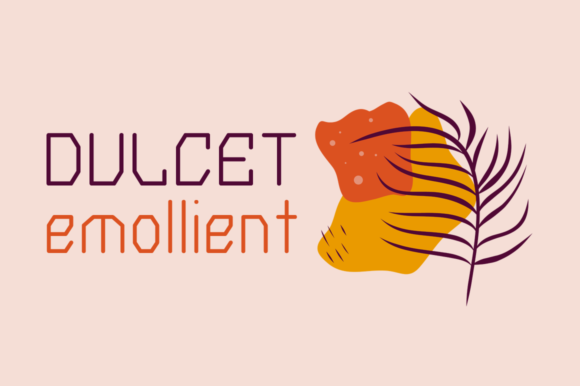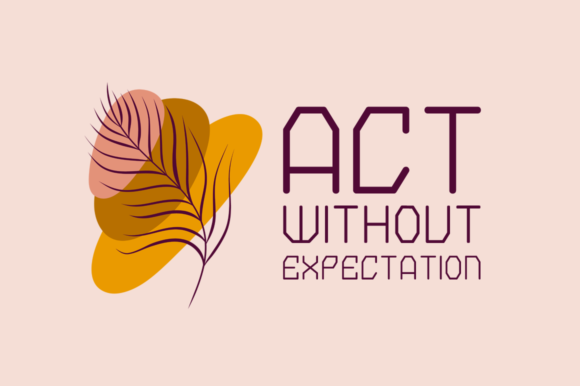
Fibril Font: Celebrating Abstract Shapes in All Their Complex Beauty
In the world of typography, fonts play a crucial role in conveying messages, expressing emotions, and creating visual identities. For designers and crafters, finding the perfect font can be a daunting task, especially when looking for something unique and attention-grabbing. This is where Fibril Font comes in – a playfully conceptual font that celebrates abstract shapes in all their complex beauty.
What is Fibril Font?
Fibril Font is a distinctive and versatile typeface that showcases intricate, abstract shapes in a mesmerizing dance of lines and curves. This font is not just a collection of letters and numbers; it’s an artistic expression that can elevate any design project to new heights. With its complex, interconnected shapes, Fibril Font adds a touch of sophistication and whimsy to any visual material.
Uses of Fibril Font
One of the most exciting aspects of Fibril Font is its incredible versatility. This font can be used in a wide range of contexts, including:
- Stationery: Create eye-catching letterheads, business cards, and invitations that showcase your brand’s personality.
- Logos: Develop a unique and memorable logo that sets your brand apart from the competition.
- T-shirts and apparel: Add a touch of style and humor to your designs with Fibril Font.
- Paper and print design: Use Fibril Font to create stunning posters, brochures, and flyers that grab attention.
- Website headers: Add a creative and artistic touch to your website’s header section.
- Photo frames and art: Use Fibril Font to add a personal touch to your photo frames, art prints, and other creative projects.
- Flyers and event materials: Create eye-catching promotional materials for events, conferences, and workshops.
Why Choose Fibril Font?
So, what makes Fibril Font so special? Here are just a few reasons why designers and crafters love this font:
- Unique and distinctive: Fibril Font offers a fresh and original take on traditional typography, making it perfect for brands and designers looking to stand out.
- Playful and creative: This font’s abstract shapes and intricate details add a touch of playfulness and creativity to any design project.
- Versatile: Fibril Font can be used in a wide range of contexts, from digital designs to print materials.
- High-quality: This font is crafted with attention to detail, ensuring a high level of quality and legibility.
Tips for Using Fibril Font
To get the most out of Fibril Font, here are some tips to keep in mind:
- Experiment with colors: Fibril Font looks stunning in a variety of colors, so don’t be afraid to experiment and find the perfect hue for your design.
- Play with scale: This font can be used in a range of sizes, from large headlines to smaller body text.
- Combine with other fonts: Fibril Font pairs well with a range of other fonts, so feel free to experiment with different combinations.
- Use it sparingly: While Fibril Font is eye-catching, it’s best used sparingly to avoid overwhelming the viewer.
Fibril Font is a truly unique and captivating typeface that celebrates abstract shapes in all their complex beauty. With its versatility, playfulness, and high-quality design, this font is perfect for designers and crafters looking to add a touch of sophistication and whimsy to their projects. Whether you’re creating stationery, logos, t-shirts, or website headers, Fibril Font is sure to make your designs stand out.